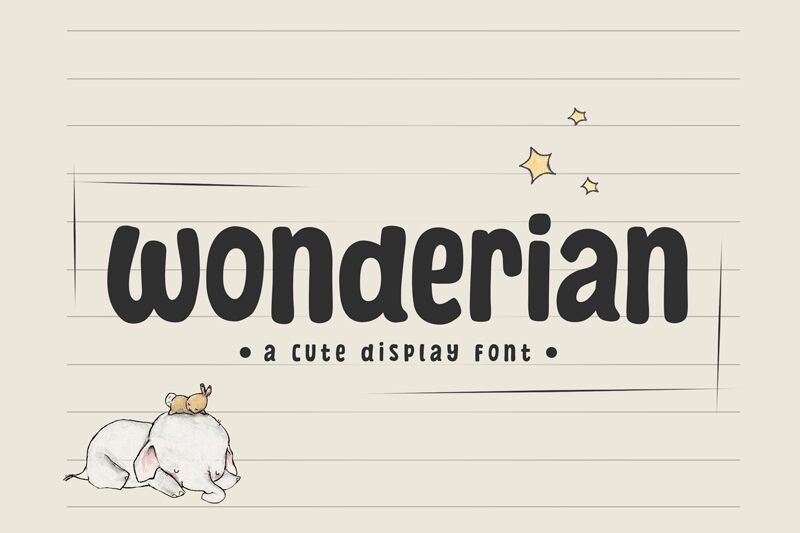
Wonderian font by Khurasan is a free cartoon font that leans into pillowy curves and inky, soft-edged shapes. Each letter swells gently, creating a bouncy rhythm with generous counters and zero hard corners, so headlines feel friendly and super readable at a glance. The weight is confident without shouting, giving you that chewy, marshmallow texture that instantly says “fun.”
Using Wonderian, playful branding and kid-facing layouts come together fast-think toy logos, candy packaging, birthday invites, classroom posters, game splash screens, and YouTube thumbnails. This free font holds up at large sizes and still reads clean in short subheads. Pair it with a light, neutral sans for body copy, and add a touch of extra tracking to keep the forms airy.